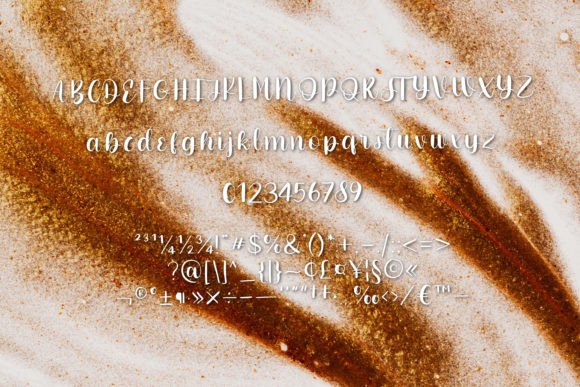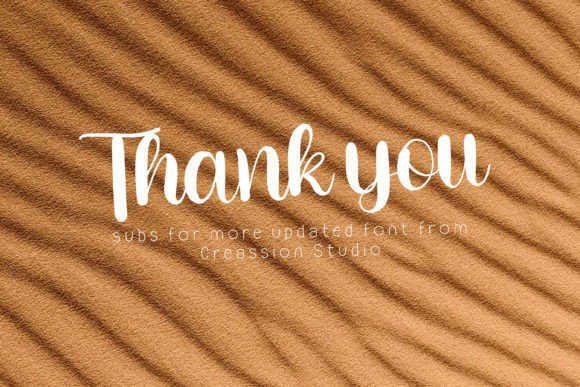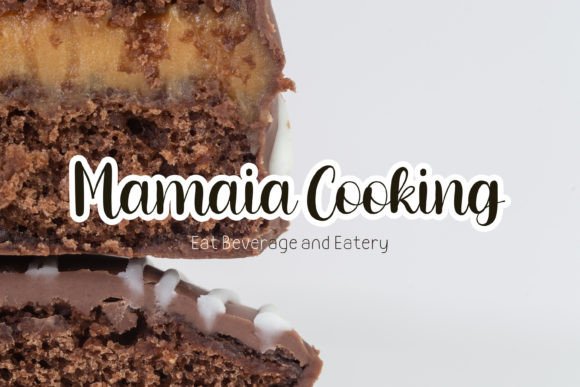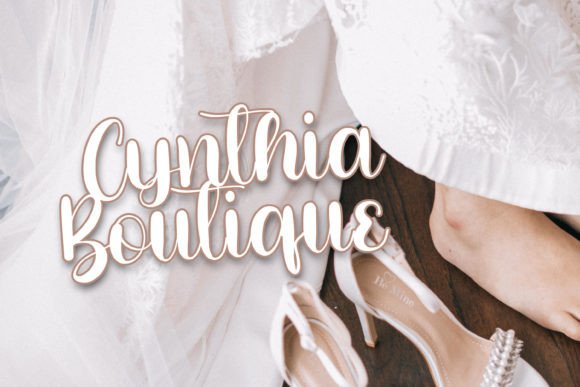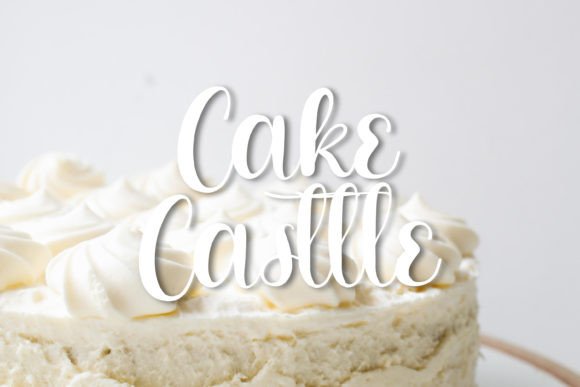
Have you ever found yourself in a moment of pure creative bliss, surrounded by scraps of paper, paint, and glue? The world seems to slow down, and all that’s left is the thrill of bringing your imagination to life. That’s exactly where the Brownies Font comes in – a cute and casual handwritten font that’s ready to elevate your creative ideas into stunning reality.
This lovely font is perfect for adding a personal touch to your social media posts, crafting beautiful calligraphy scripts for DIY projects, or simply giving your written words a friendly and approachable feel. As a designer, you know the importance of selecting the right font to convey your message and capture your audience’s attention. The Brownies Font is a valuable addition to any designer’s toolkit, offering a unique and charming touch that’s sure to make your work stand out.
Brownies Font Key Features
- Font Family: Brownies Font is a unique, hand-drawn script font designed for various creative purposes.
- Unique Characteristics: Brownies Font features a playful, whimsical design with irregular letterforms, perfect for adding a touch of personality to designs.
Designer Review: Brownies Font
Overall, I’d say the Brownies Font is a decent addition to any designer’s toolkit. Let’s dive into what it does well and where it falls short.
- Unique Character: The Brownies Font has a distinct, playful feel that can add a nice touch to projects that need a bit of whimsy.
- Good Legibility: Despite its playful nature, the font is still easy to read, making it suitable for body text or titles.
- Customization Options: Brownies Font offers a range of styles and weights, giving designers a bit of flexibility when it comes to choosing the perfect look.
- Not Ideal for Formal Text: Due to its playful nature, Brownies Font might not be the best choice for formal or professional projects.
- Limited Versatility: While the font is customizable, it’s still a relatively simple design that might not be suitable for complex or intricate projects.
- Lack of Distinctiveness at Larger Sizes: When scaled up, the font’s unique character can get lost, making it harder to read and distinguish from other fonts.
The Brownies Font is a solid choice for designers looking to add a bit of personality to their projects. While it has its limitations, it’s a great option for those who want to create a fun and lighthearted atmosphere. Just be mindful of its limitations and choose it wisely.
Some tips for getting the most out of the Brownies Font include:
- Using it for titles and headings to add a touch of whimsy.
- Pairing it with other fonts to create a unique and playful look.
- Using it for social media posts and other online content to add a touch of personality.
Alternatives to Brownies Font for Designers
Oswald is a sans-serif font that is ideal for headings and titles. It is a great alternative to Brownies Font when you need a clean and modern look. Oswald is more versatile and can be used in a variety of contexts, from print to digital media. Compared to Brownies Font, Oswald has a more geometric and minimalist feel, making it a great choice for designers who want to create a sleek and sophisticated look.
Montserrat is a sans-serif font that is inspired by urban typography. It is a great alternative to Brownies Font when you need a font that is both modern and elegant. Montserrat has a more condensed feel than Brownies Font, making it ideal for use in headings and titles. Compared to Brownies Font, Montserrat has a more refined and sophisticated feel, making it a great choice for designers who want to create a premium look.